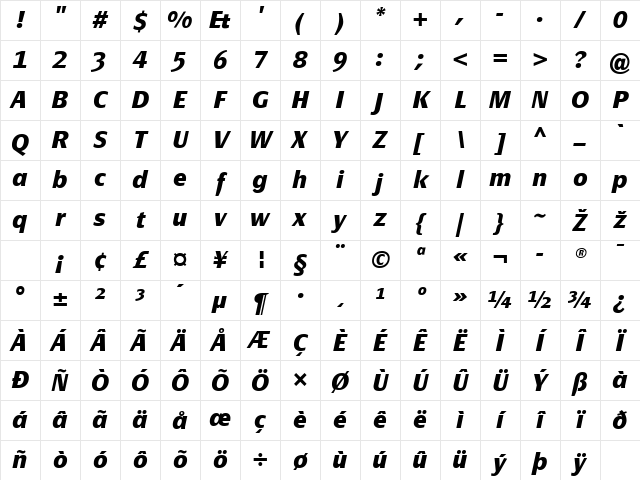
PageSansTF-BoldItalic Regular
Foundry: Albert Boton, published by FontShop International for the FontFont Library
Designer: Albert Boton
Design Context for PageSansTF-BoldItalic
PageSansTF-BoldItalic is a composed and adaptable typeface that performs quietly and consistently across a wide range of design contexts. The slanted form adds forward momentum and visual energy. Its bold stroke weight gives it real presence on the page.
Who designed the PageSansTF-BoldItalic Regular font?
This font was published by Albert Boton, published by FontShop International for the FontFont Library. Check the technical specs section for copyright and designer details.